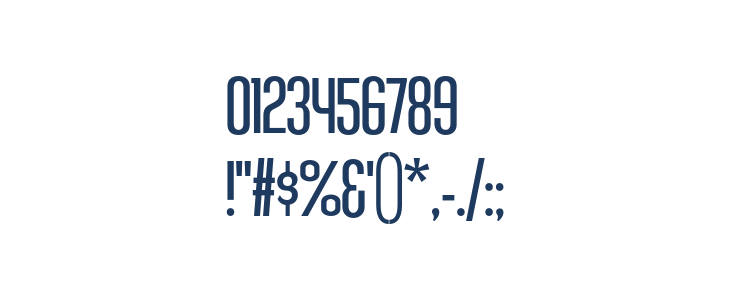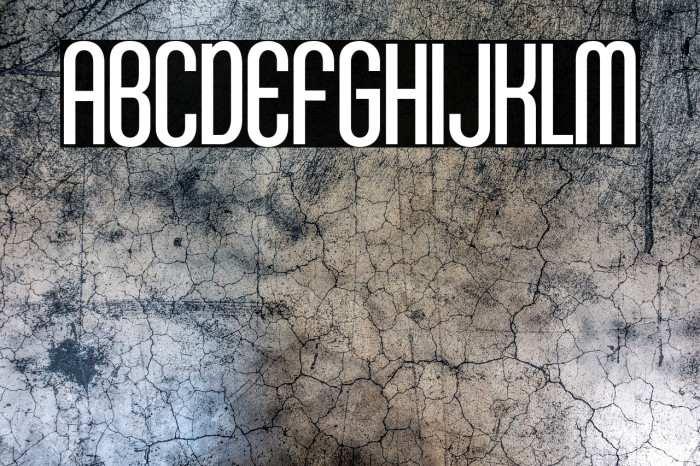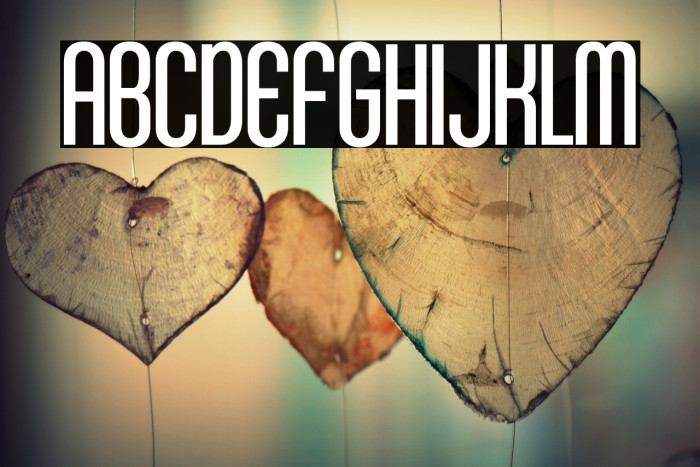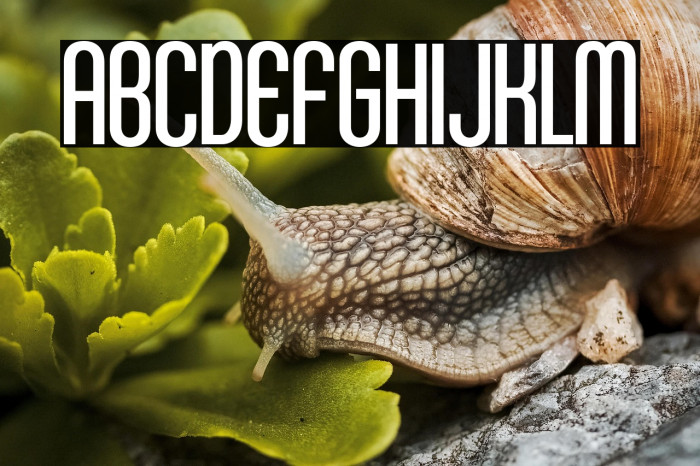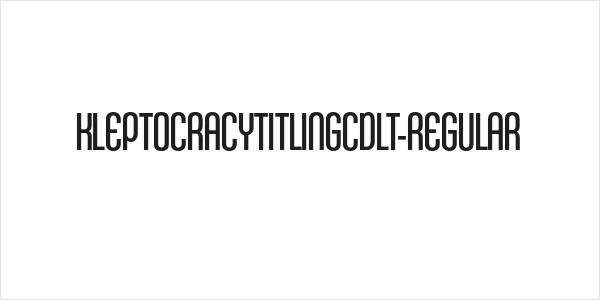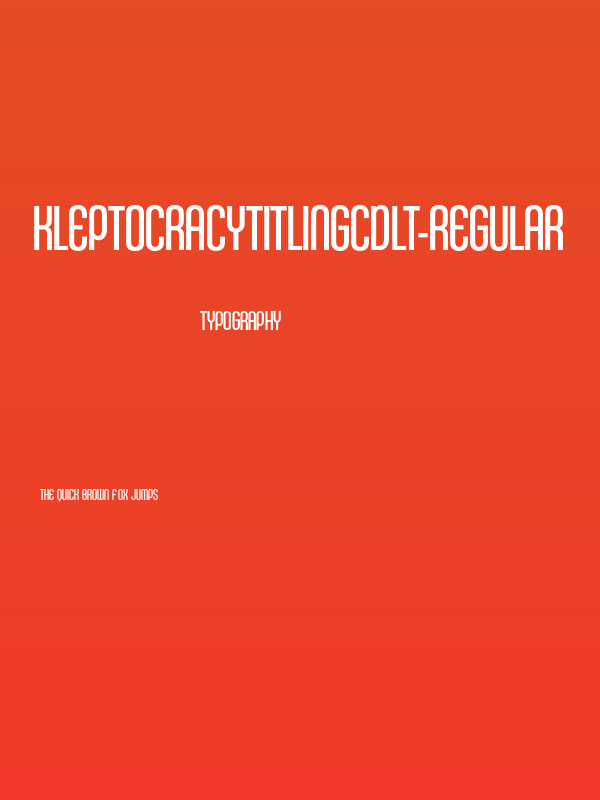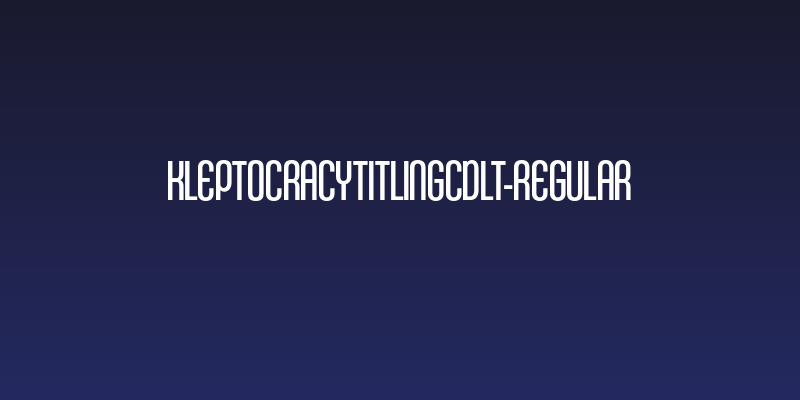
KleptocracyTitlingCdLt-Regular Font
KleptocracyTitlingCdLt-Regular Description
This font features a tall, condensed style with clean, geometric lines and a modern aesthetic. The uppercase letters are uniform in height, creating a cohesive and structured appearance. The lowercase letters maintain the same width, enhancing the uniformity and readability. Numbers are designed with the same condensed style, ensuring consistency across all characters. Special characters are distinct yet harmonious with the overall design, making this font versatile for various applications. The stroke thickness is consistent, providing a balanced look without high contrast.
Proposed ProjectsIdeal for branding, posters, headlines, and modern design projects where a clean and structured look is desired.